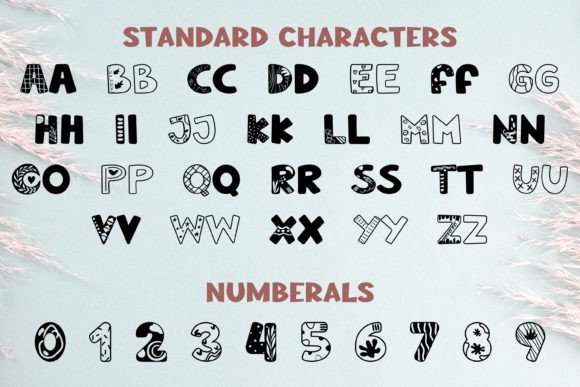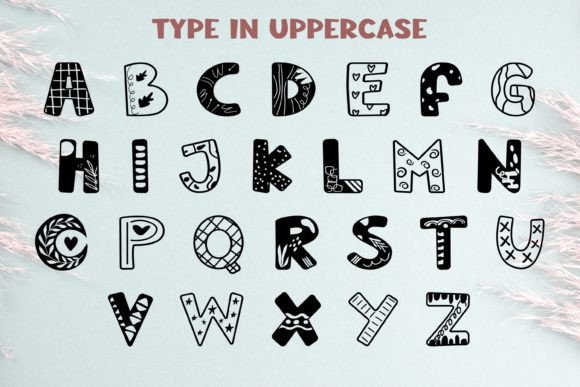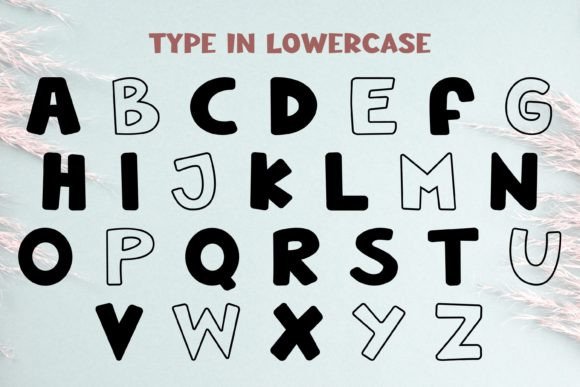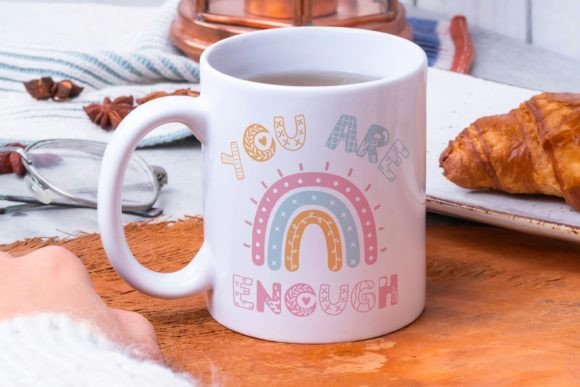
Capturing the Essence of Bohemian Chic: The Cute Boho Font
Have you ever found yourself staring at a blank page, struggling to put into words the creative vision swirling in your mind? That’s exactly what happened to me when I stumbled upon the Cute Boho Font. I was looking for the perfect font to add a touch of whimsy to a project, and this charming decorative font immediately caught my eye.
With its chic and playful design, the Cute Boho Font is perfect for designers who want to add a bohemian flair to their work. Whether it’s an invitation, poster, or branding material, this font is sure to capture the free-spirited essence of bohemian style. As a designer, you’ll appreciate the unique charm and versatility of this font, making it a valuable addition to your creative arsenal.
Cute Boho Font Key Features
- Unique Characteristics: The Cute Boho Font features a distinctive, hand-drawn style with intricate details and flourishes, giving it a whimsical and feminine touch.
Cute Boho Font Review
I recently had the chance to work with the Cute Boho Font, and I must say it’s a delightful addition to any design project. ✨ Here are some of the things that really stand out to me:
- Playful charm**: The font has a unique, whimsical feel that’s perfect for designs that need a touch of bohemian flair.
- Customizability**: With a range of weights and styles available, you can easily adjust the font to fit your design needs.
- Good legibility**: Despite its playful nature, the font remains easy to read, even at smaller sizes.
Of course, no font is perfect, and the Cute Boho Font has a few limitations that you should be aware of:
- Limited range of languages**: The font only supports a limited range of languages, which may be a problem for designs that need to be translated.
- May not be suitable for formal designs**: The font’s playful nature may not be suitable for more formal or professional designs.
Overall, I think the Cute Boho Font is a great choice for designers who want to add a touch of personality to their work. While it may not be suitable for every project, it’s a versatile and charming font that’s sure to impress.
Tips for Getting the Most Out of Cute Boho Font
To get the most out of Cute Boho Font, use it in conjunction with other design elements that evoke a bohemian or vintage feel, such as:
- Floral patterns
- Watercolor textures
- Distressed or worn-out effects
Cute Boho Font is commonly used in:
- Baby shower invitations and decorations
- Food and drink branding (e.g., coffee shops, bakeries)
- Use Cute Boho Font for the invitation’s title, names, and other important details.
- Combine with hand-drawn illustrations, flowers, or other natural elements to add a bohemian touch.
- Use a combination of bold and cursive fonts to create visual interest.
- Use Cute Boho Font for the blog’s name, tagline, or other important text elements.
- Combine with colorful illustrations, patterns, or textures to add visual interest.
- Use a combination of bold and cursive fonts to create visual hierarchy.
Q: What is the recommended font size for using the Cute Boho Font?
The recommended font size for using the Cute Boho Font depends on the intended use and the design application. However, as a general guideline, use font sizes between 12pt and 24pt for body text, and larger font sizes for headings and titles. This will ensure the font is legible and visually appealing in a variety of contexts.